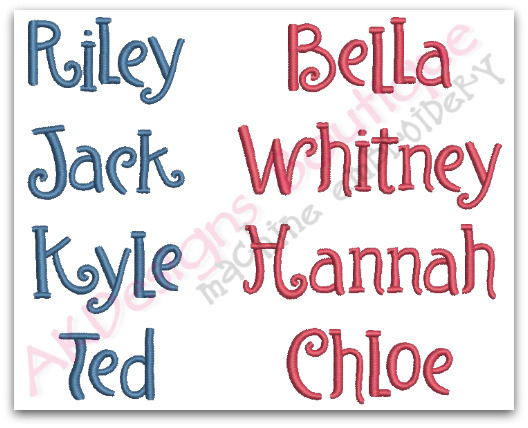
No 318 Swirly Font Machine Embroidery Designs 1 inch high
• Examples of how the names look once the letters are combined.
No 318 Swirly Font Machine Embroidery Designs 1 inch high
Designed to combine and spell names